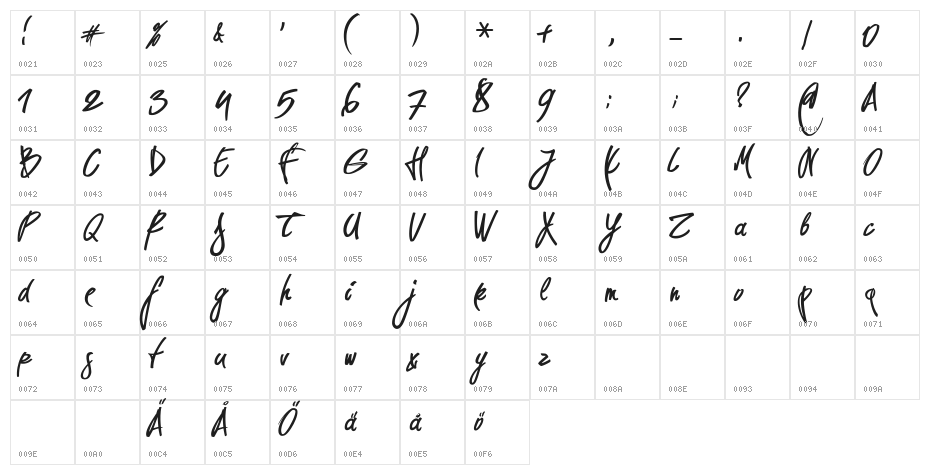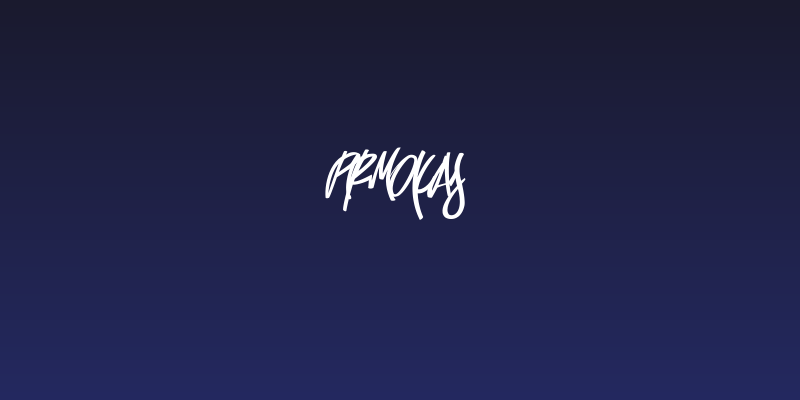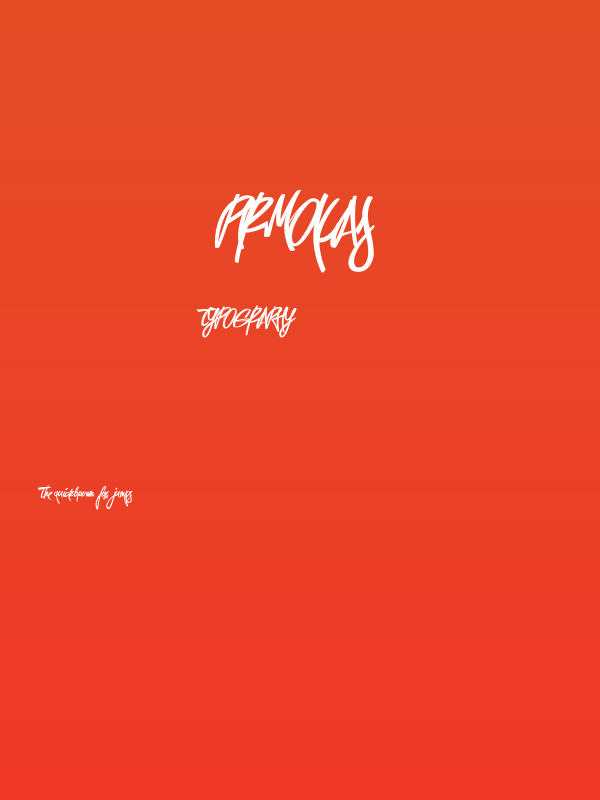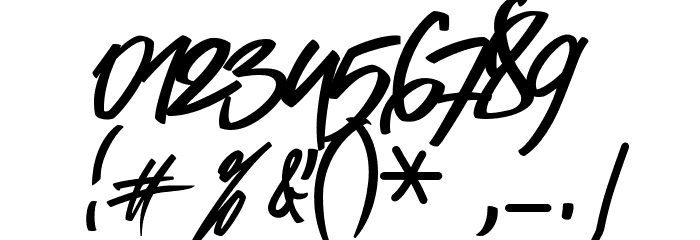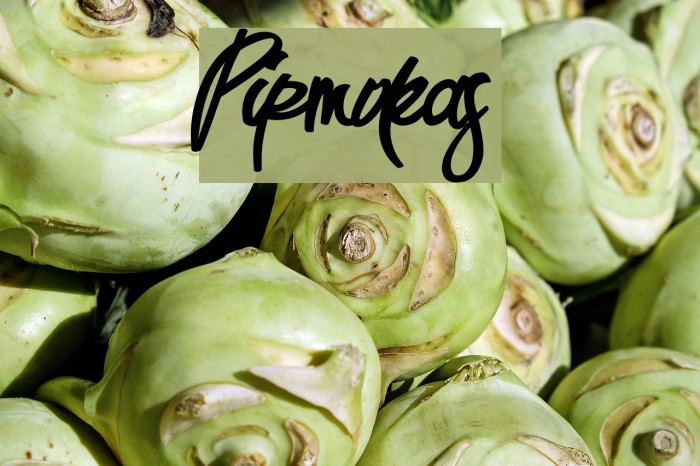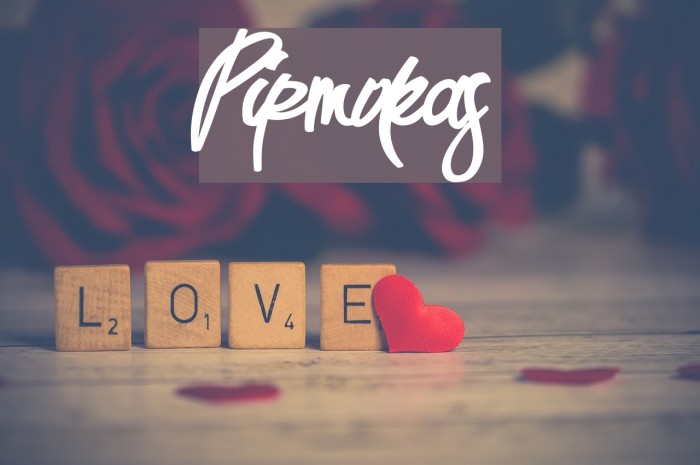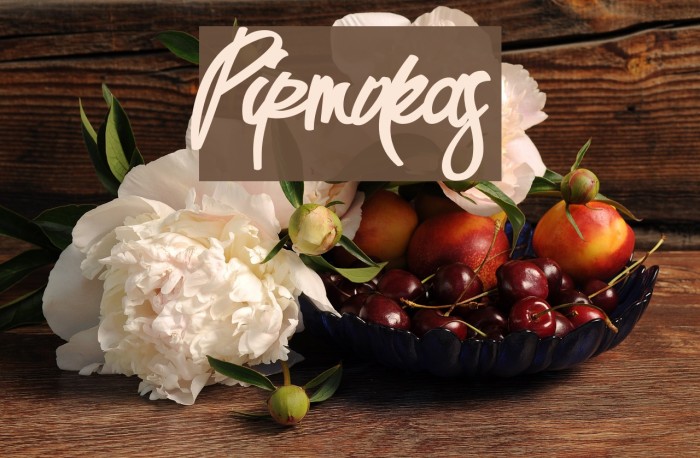
Pirmokas Font
Pirmokas Description
This font exhibits a dynamic and energetic handwritten style, characterized by its bold and expressive strokes. The letters are crafted with a sense of movement and fluidity, giving it a lively and informal appearance. The uppercase and lowercase letters maintain a consistent style, with elongated and slightly slanted forms that enhance its casual and spontaneous feel. The numerals and special characters are equally expressive, complementing the overall aesthetic. This font's unique personality makes it stand out, offering a sense of individuality and creativity.
| Use Case | Logos, Headlines, Posters |
| Proposed Projects | Ideal for creative projects such as greeting cards, posters, branding, and social media graphics where a personal and artistic touch is desired. |